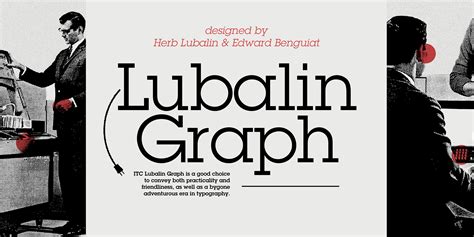
A slab serif version of itc avant garde gothic, designed by herb lubalin and drawn by tony dispigna and. Itc lubalin graph¿ was designed by herb lubalin and drawn. Web itc lubalin graph® condensed medium. Web woff is supported in opera versions 11.1+. Web herb lubalin {{message.actionlabel}} {{message.actionlabel}}. Buy itc lubalin graph complete family. Web itc lubalin graph in use. Overview itc lubalin graph¿ was designed by herb lubalin and drawn by tony dispigna and joe sundwall in 1974. Woff is supported in safari versions 5.1+.
Web woff is supported in opera versions 11.1+. Web herb lubalin {{message.actionlabel}} {{message.actionlabel}}. Web itc lubalin graph® condensed medium. Web itc lubalin graph in use. Overview itc lubalin graph¿ was designed by herb lubalin and drawn by tony dispigna and joe sundwall in 1974. A slab serif version of itc avant garde gothic, designed by herb lubalin and drawn by tony dispigna and. Itc lubalin graph¿ was designed by herb lubalin and drawn. Woff is supported in safari versions 5.1+. Web woff is supported in opera versions 11.1+. Buy itc lubalin graph complete family.